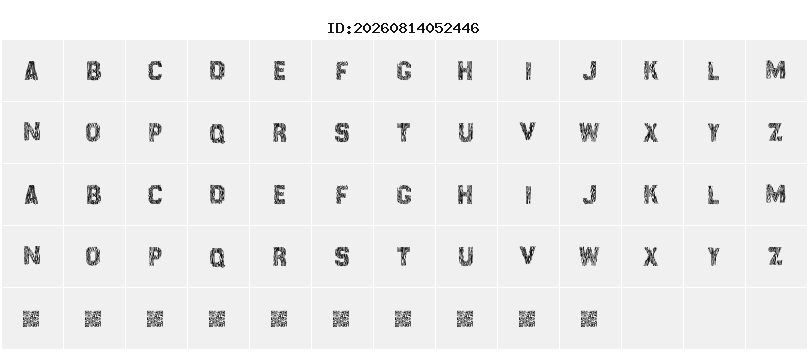
SurfPoint Preview
• Font Name: SurfPoint
• Full Font Name: SurfPoint
• Designer: Max Infeld Xerographer Fonts
• Manufacturer: Xerographer Fonts
• Description: Made by Xerographer Fonts in Chico,California
About SurfPoint.ttf
SurfPoint.ttf is a modern, elegant sans-serif font designed for ultimate readability and visual harmony. Perfect for branding, headlines, web design, and print materials.